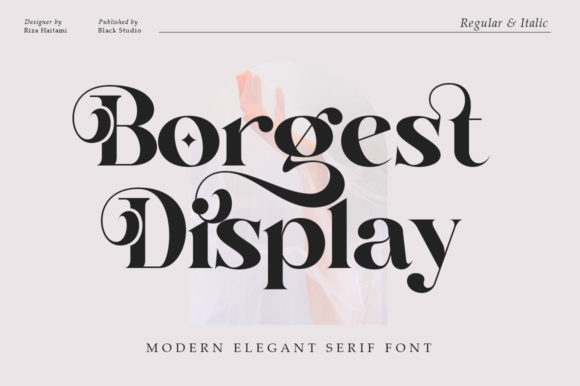
Embrace the elegance and charisma of Borgest Display Font, a striking display font family crafted by the talented team at Black Studio. This font exudes a captivating presence, designed to elevate your digital projects to new heights.
Immerse yourself in the world of mobile web applications, where Borgest Display reigns supreme. Its bold and stylish characters are meticulously engineered to render flawlessly on screens of all sizes, ensuring an exceptional user experience.
With Borgest Display, you'll unlock a world of creative possibilities. Its versatile nature lends itself to a myriad of applications, from eye-catching headlines and captivating social media posts to sophisticated logos and branding materials.
Unleash your creativity and let Borgest Display ignite your imagination. Its PUA encoding grants you effortless access to a treasure trove of glyphs and swashes, empowering you to add intricate details and flourishes to your designs.
As you incorporate Borgest Display into your projects, prepare to witness a transformation. Its bold and confident strokes command attention, while its stylish curves exude a touch of elegance. Experience the joy of creating designs that resonate with your audience, leaving a lasting impression.
Welcome to the world of Borgest Display Font, where boldness and beauty converge. Its captivating presence and versatility await your creative touch. Embrace the power of this remarkable font and elevate your digital creations to new heights of excellence.